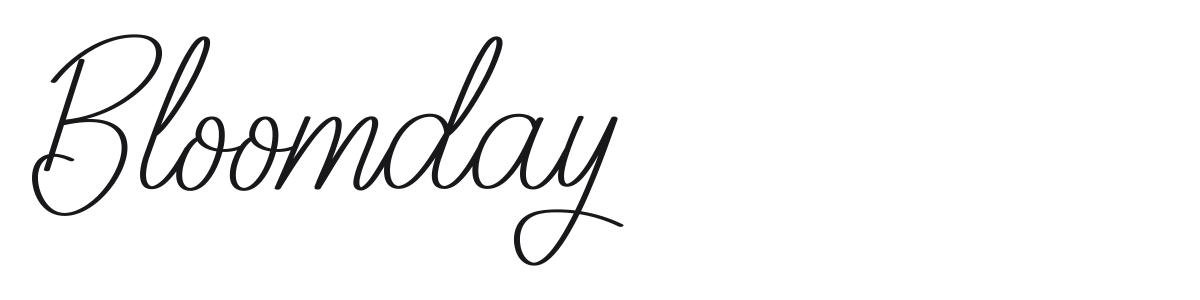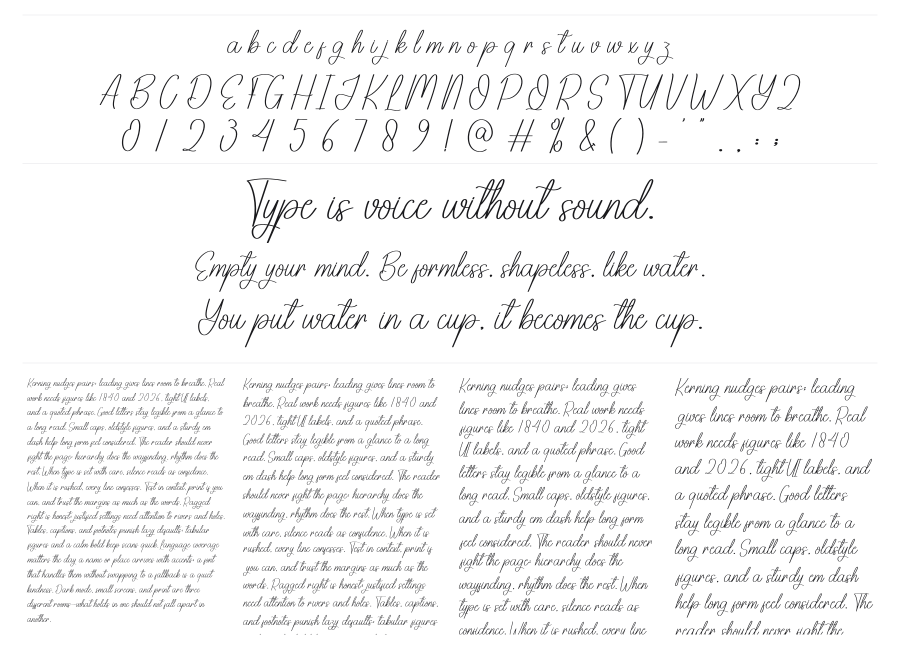
Bloomday
Bloomday is a light, flowing casual script with sweeping loops and airy, connected strokes. The near-hairline weight and long looping ascenders give it a breezy, handwritten feel that reads as effortlessly cheerful. It suits wedding stationery, greeting cards, and any branding that needs a warm, personal touch.